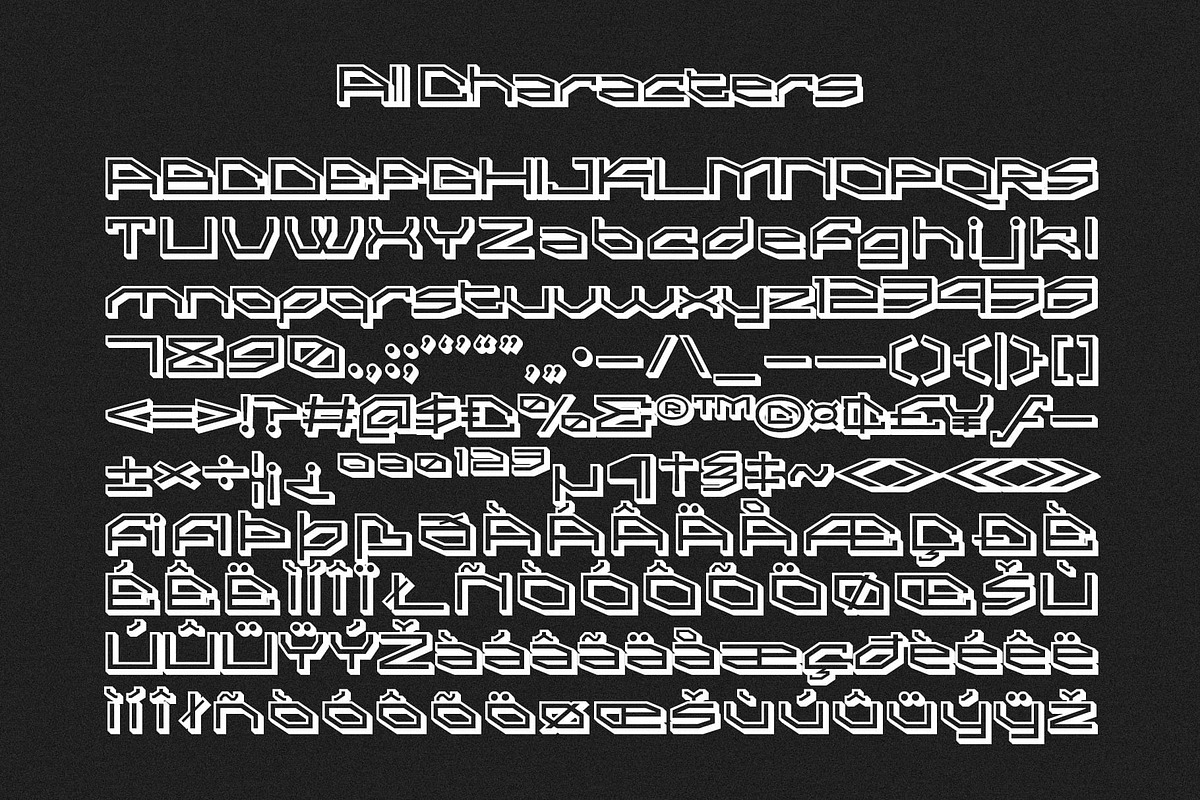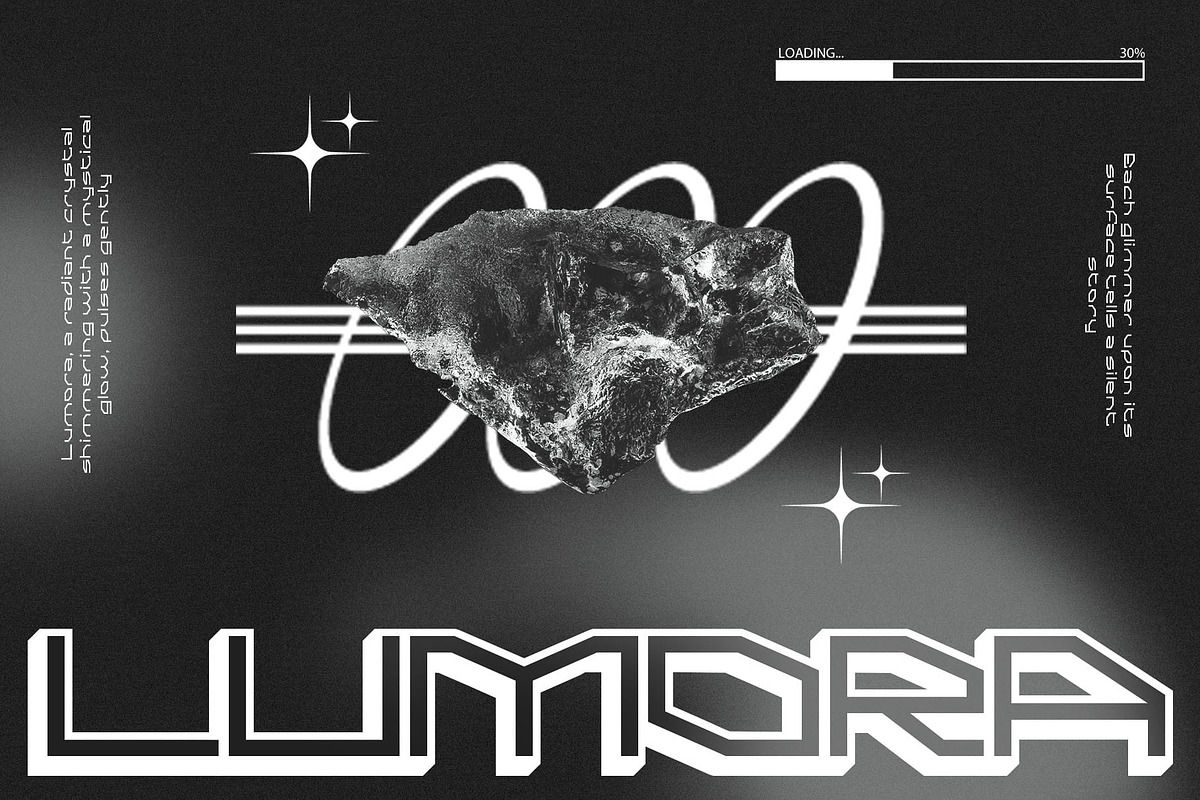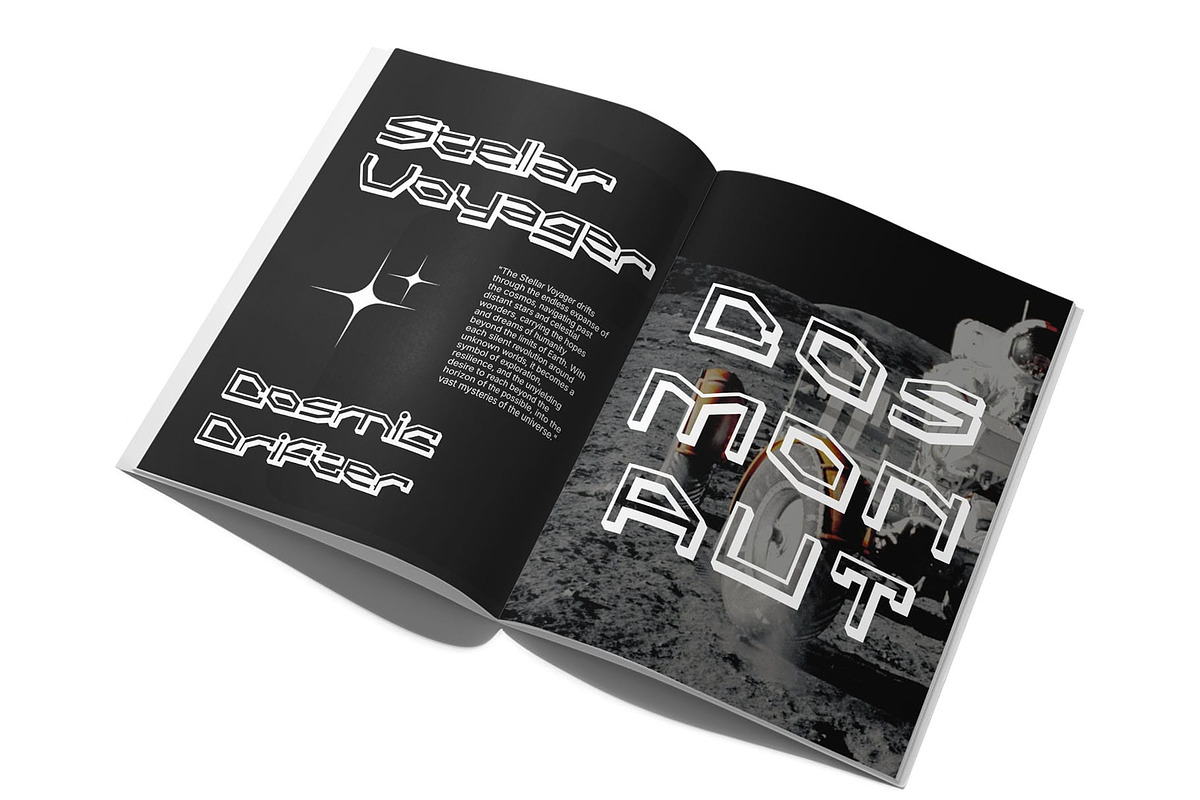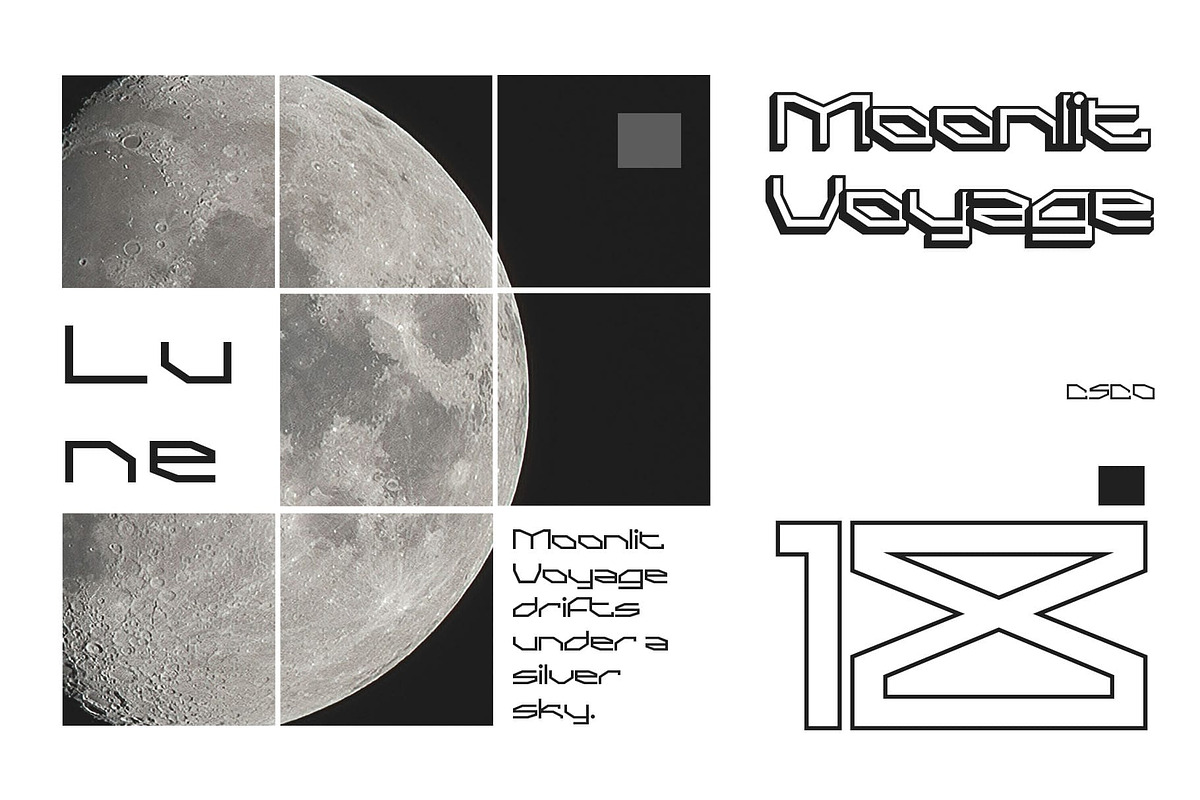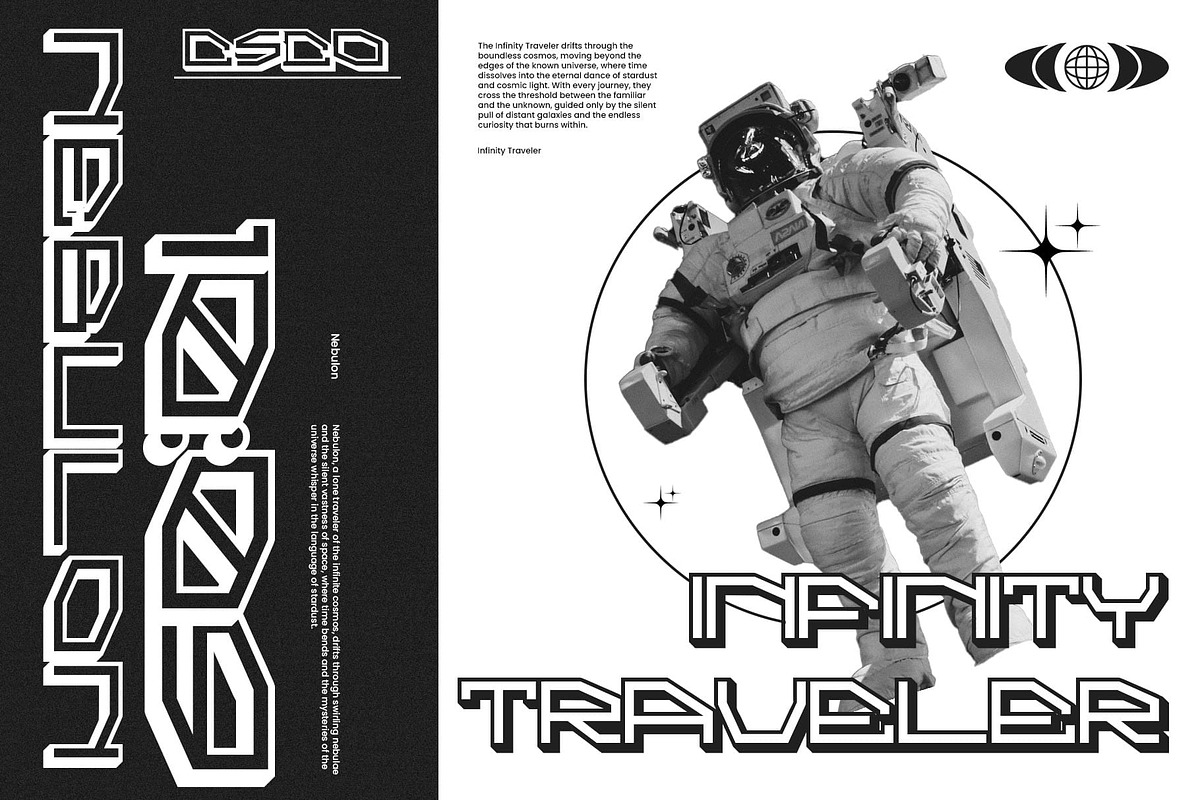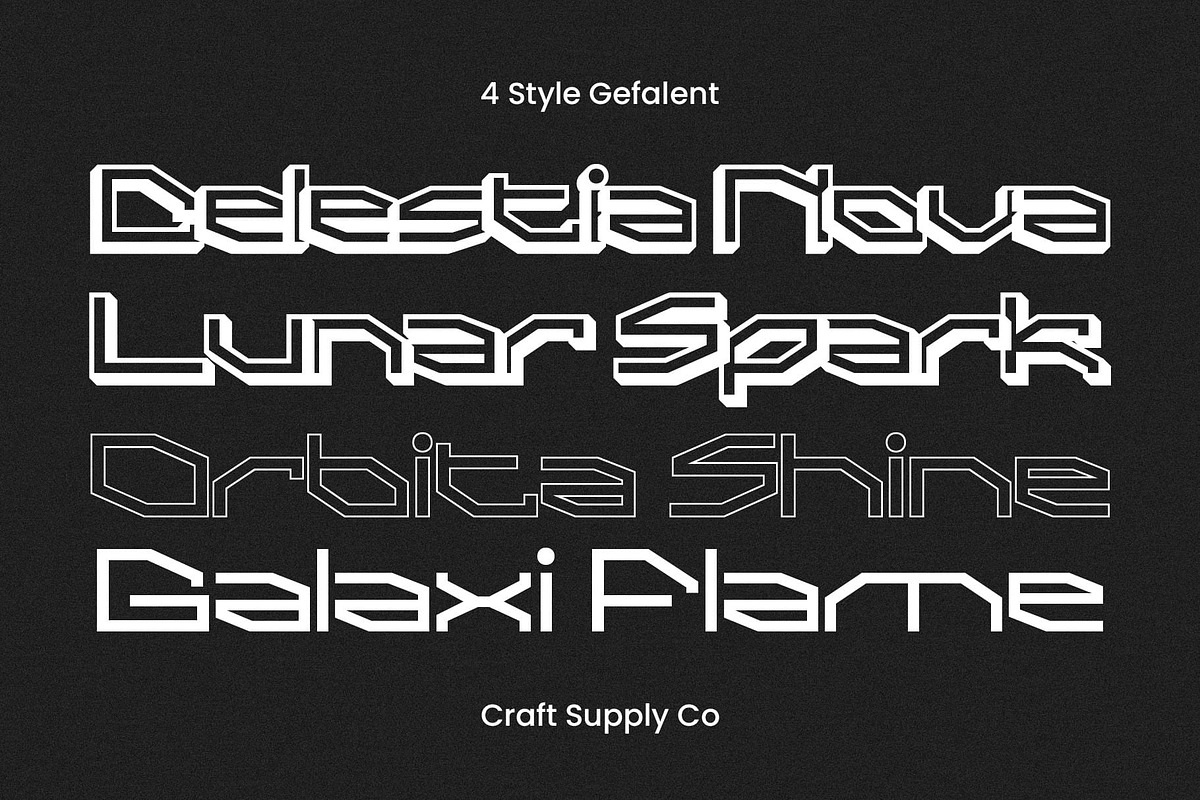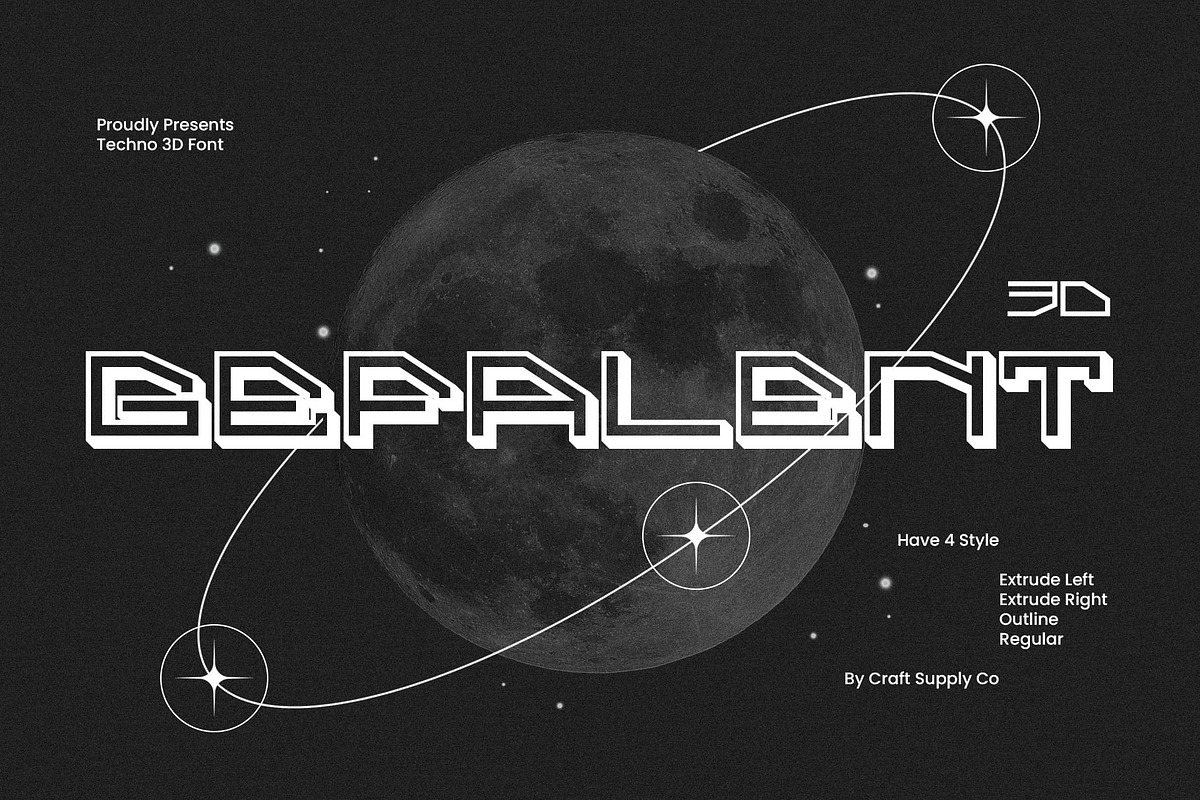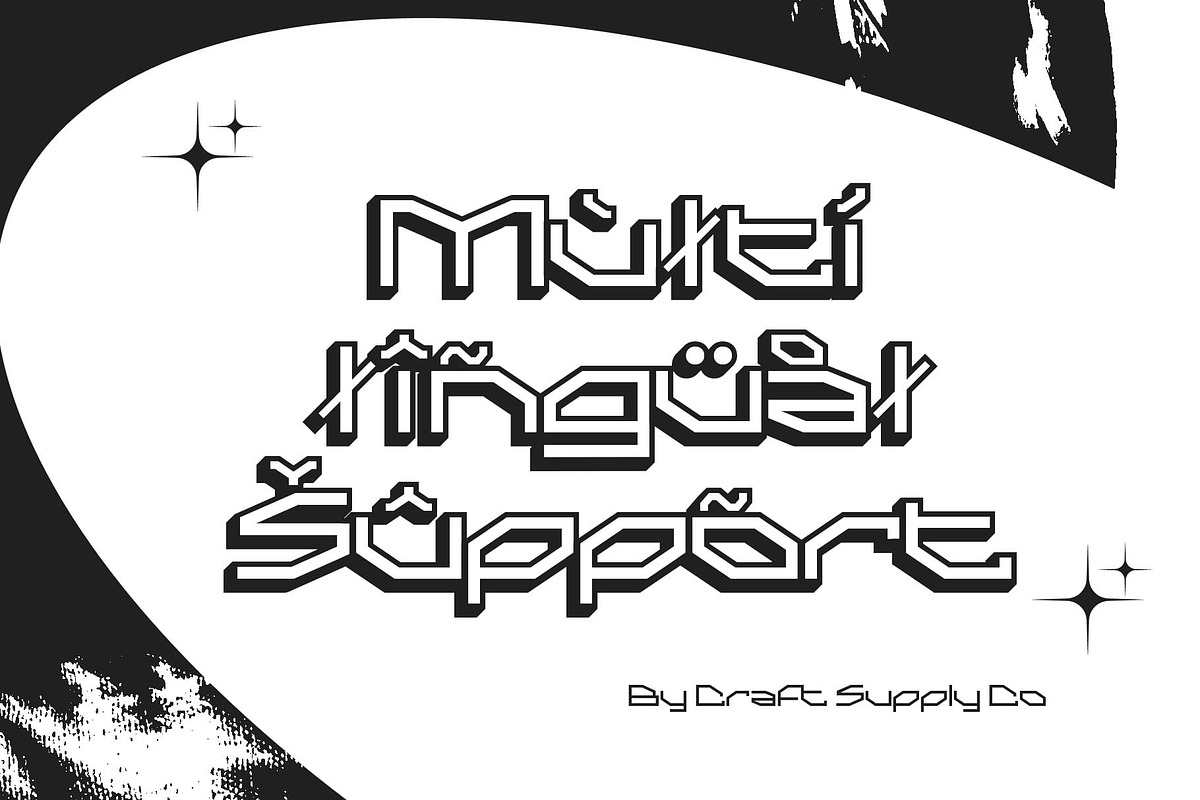
Gefalent 3D
Gefalent 3D Font: A Bold, Futuristic Display Font
Futuristic Geometric Design with Bold Precision Gefalent 3D is a modern display font that features a sharp, geometric design with clean, bold lines. Its precise, symmetrical shapes create a structured and highly modern impression, making it ideal for designs that demand clarity and a futuristic edge. The geometric form exudes a sense of innovation and technological sophistication, perfect for contemporary projects.
Dynamic 3D Effect for Enhanced Depth The integrated 3D effect adds an extra layer of depth and dimension to the letters, making each character pop and creating a visually dynamic appearance. The 3D styling enhances the font’s boldness, giving it a powerful presence and a sense of movement, while preserving its modern and sleek character. Gefalent 3D is designed to stand out in technology branding, game design, and other futuristic projects.
A Striking Choice for Forward-Thinking Designs With its geometric precision and futuristic appeal, Gefalent 3D offers a striking and innovative visual that is perfect for any project looking to emphasize progress and modernity. Its bold 3D effect ensures that your designs remain eye-catching and impactful, while its sleek lines and structure provide a sense of professionalism and sophistication.
- Gefalent Regular
- Gefalent Outline
- Gefalent Extrude Right
- Gefalent Extrude Left